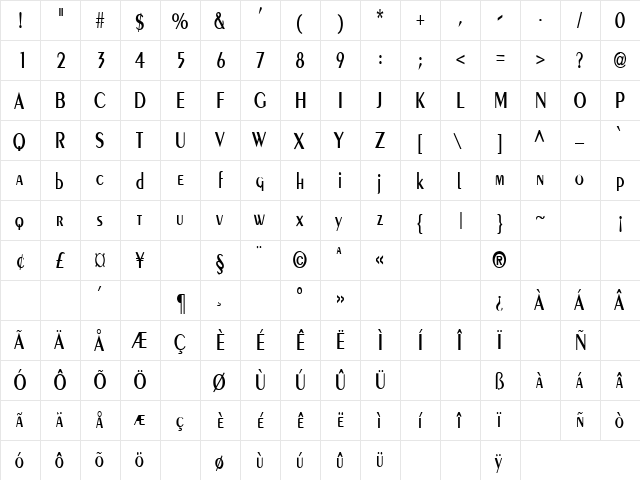
Custard Pie 2 Regular Font Preview
Custard Pie 2 Regular
Design Context for Custard Pie 2 Typeface
Custard Pie 2 is a composed and adaptable typeface that performs quietly and consistently across a wide range of design contexts.